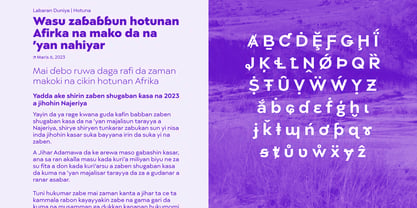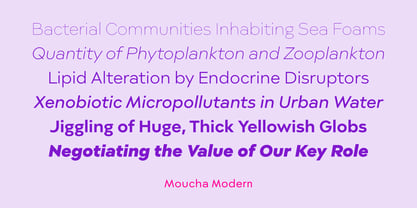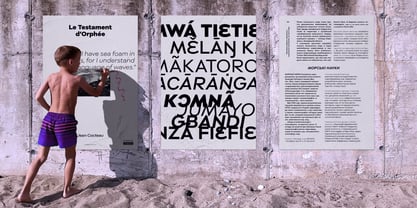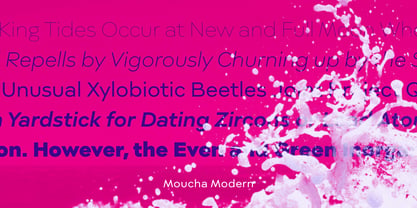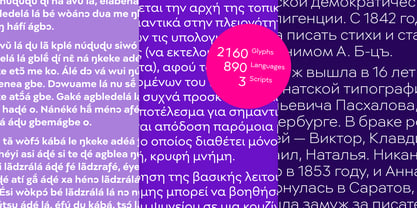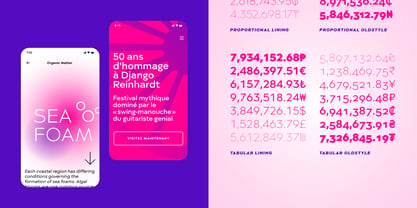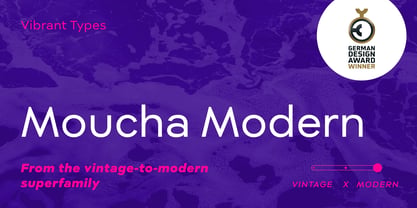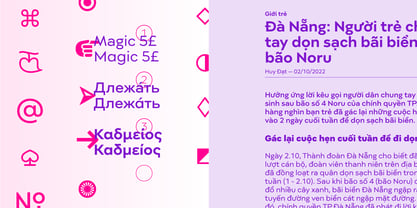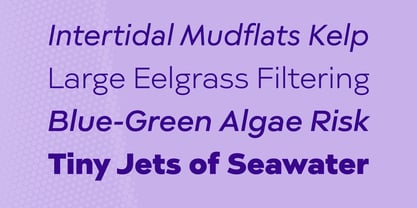
Moucha Modern
by Vibrant Types
The Moucha Modern Font Family was designed by Philip Lammert and published by Vibrant Types. Moucha Modern contains 16 styles and family package options. More about this family
Moucha Modern is a geometric typeface family with a static look. The equalized character widths, like the wide ‘n’, give it a contemporary appeal. It is part of the Moucha vintage-to-modern superfamily, which received the German Design Award 2024 for its multitude of variants. It supports 890 Latin, Cyrillic, and Greek languages.
Typefaces by Vibrant Types care about the content you want to express. Find fonts in good shape to meet today's challenges for high-quality editorial and brand design. This foundry is run by Philip Lammert who after experience in corporate design agencies and a masters degree with a focus on type design dedicates to the development of original retail and custom fonts.